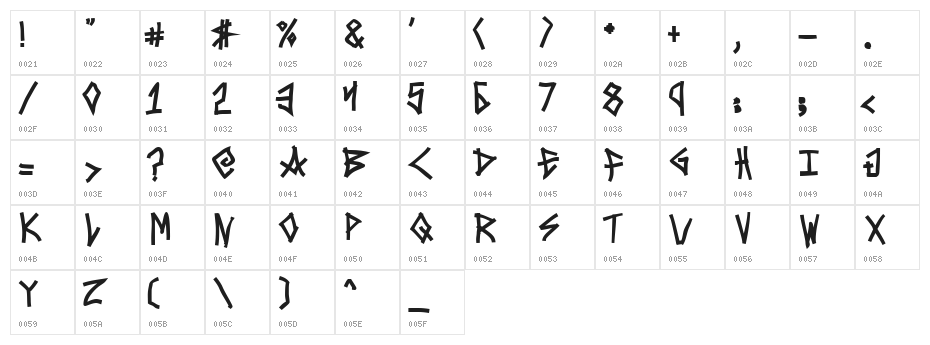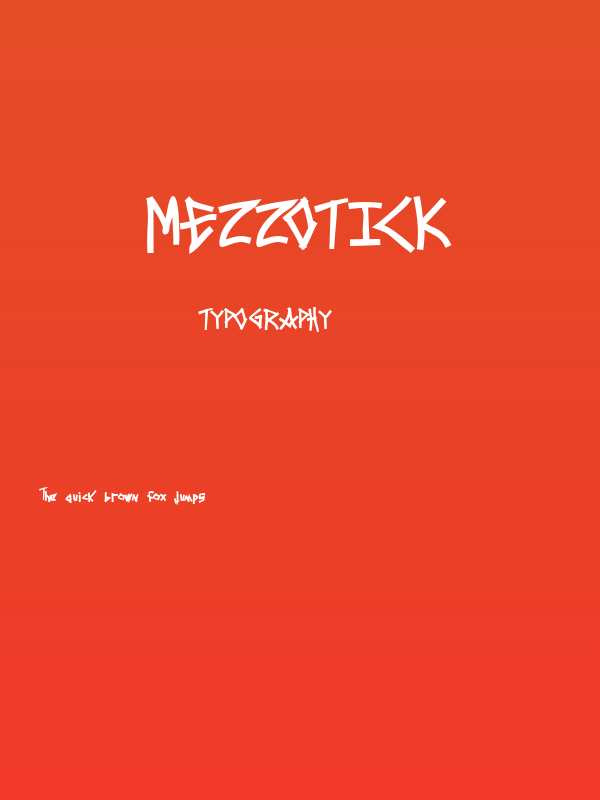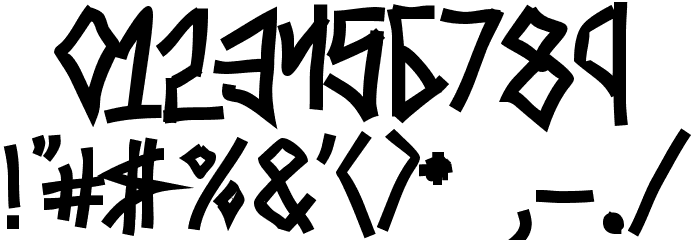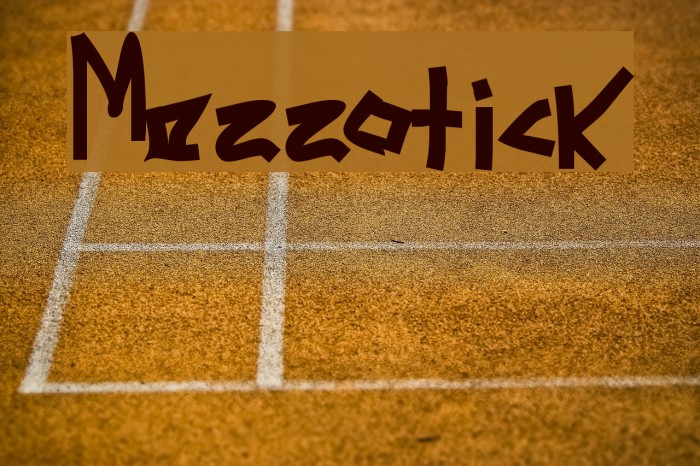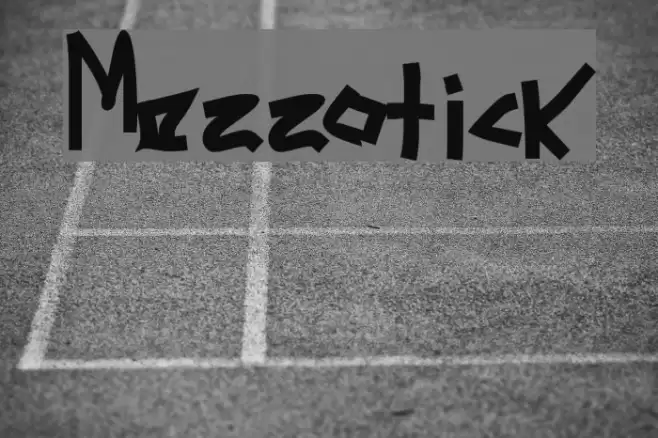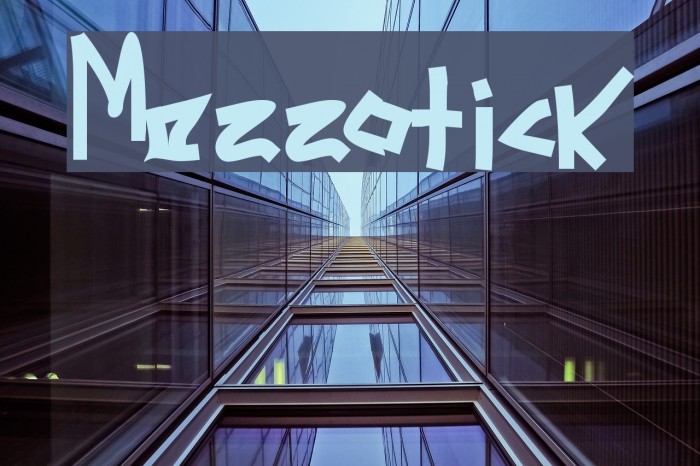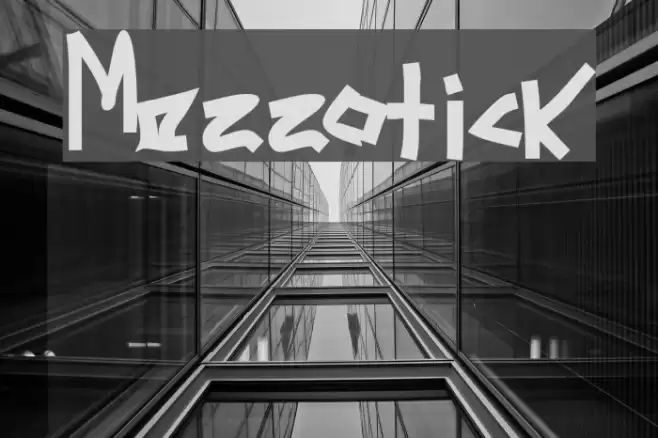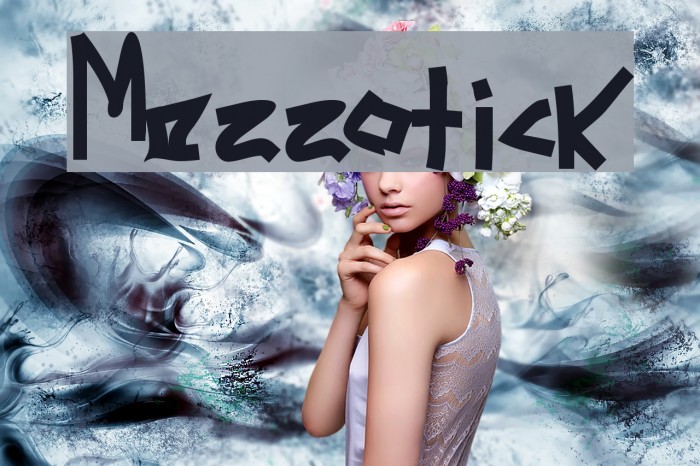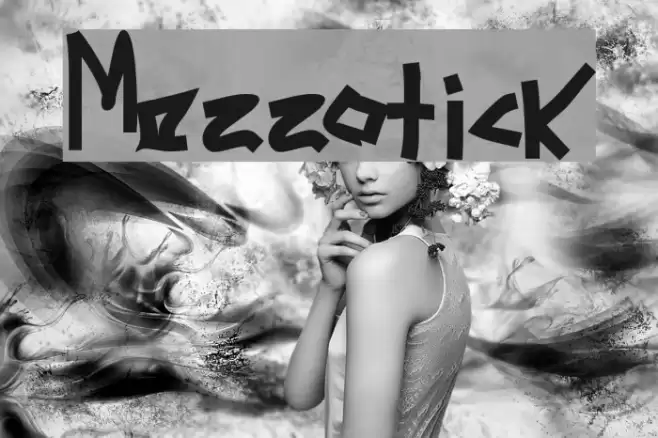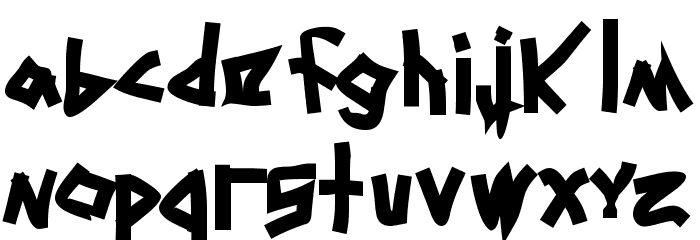
Mezzotick Font
| 全体的なスタイル | Modern, Edgy |
| おすすめプロジェクト | Ideal for street art designs, music album covers, urban-themed posters, and edgy branding projects. |